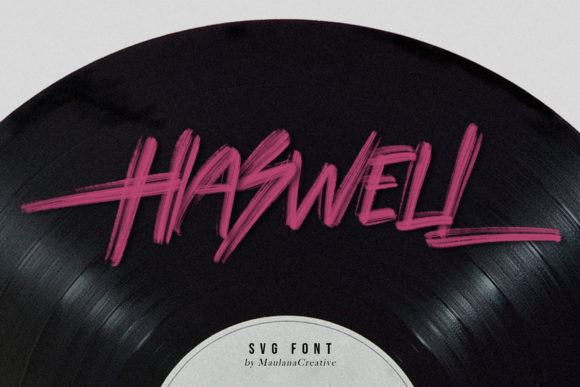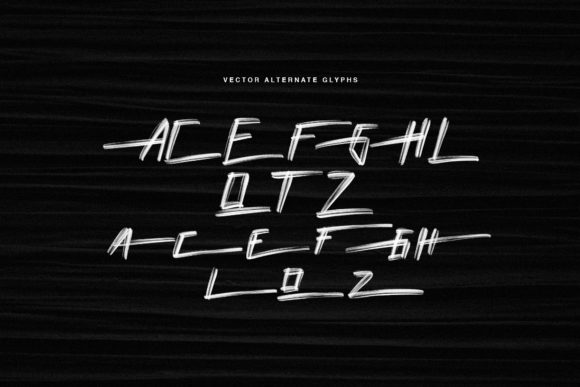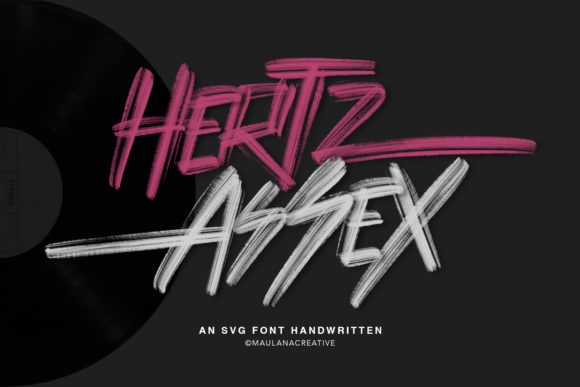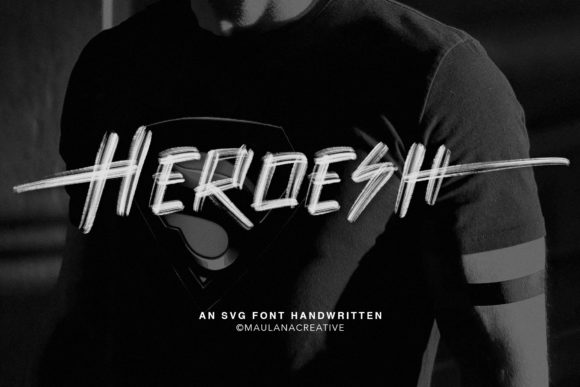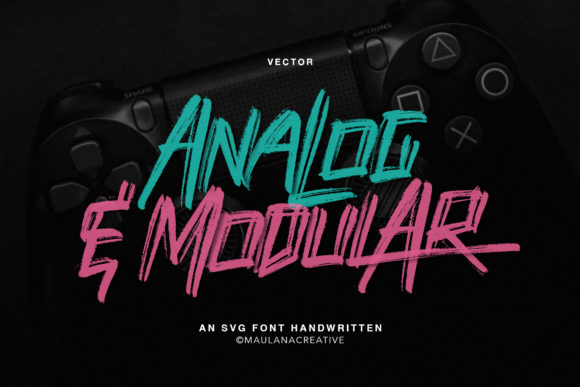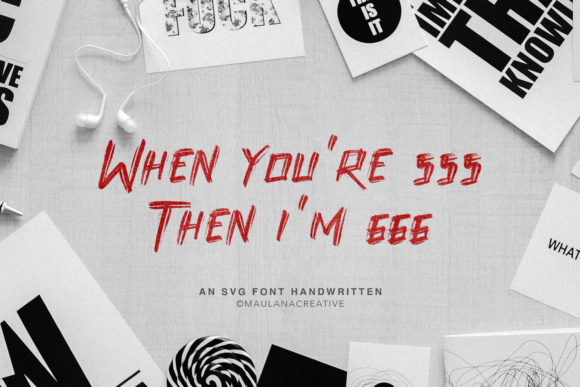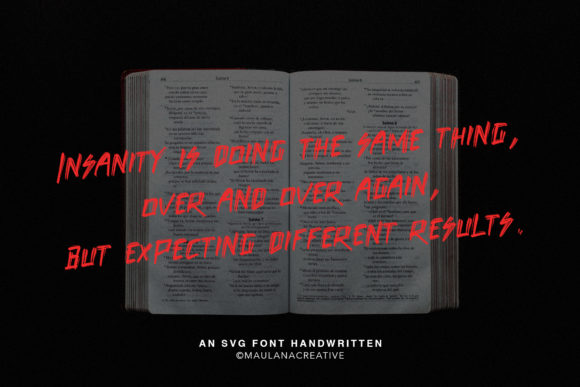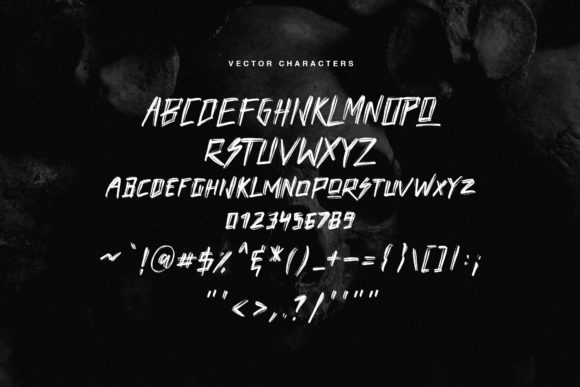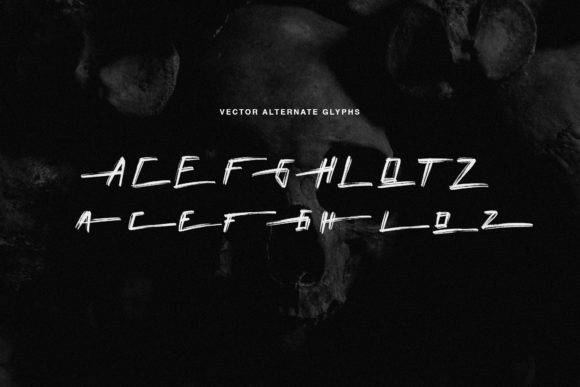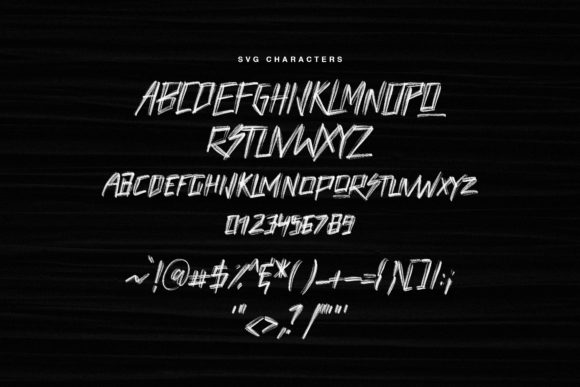
HomeScript FontsHaswell Font Script Fonts Haswell Font FacebookXPinterestWhatsApp Haswell Font Poster 2 Haswell Font Poster 3 Haswell Font Poster 4 Haswell Font Poster 5 Haswell Font Poster 6 Haswell Font Poster 7 Haswell Font Poster 8 Haswell Font Poster 9 Haswell Font Poster 10 About Haswell Font Haswell is a handwritten brush font. It is perfect for signatures, logos, branding, packaging and more. DOWNLOAD ON CREATIVE FABRICAThis font is sold and delivered by Creative Fabrica. Font Canyon may earn a commission if you buy through this link. People also explored Impermanence Font Saffron Font Silver South Font Setia Font Manoeffa Font Qergaint Font Fritlany Font Conica Bettlunerd Font 296 0 TagsHaswell Font Previous articleKambia FontNext articlePandasans Font LEAVE A REPLY Cancel reply Comment: Please enter your comment! Name:* Please enter your name here Email:* You have entered an incorrect email address! Please enter your email address here Website: Save my name, email, and website in this browser for the next time I comment. Personal Use Free Vincent Familiante Personal Use Free Read more about this font Gonestones Personal Use Free Read more about this font Motherblood Personal Use Free Read more about this font Elsabetha Personal Use Free Read more about this font BLOG Modern Sans-Serif Fonts That Brands Love in 2025 In 2025, modern sans-serif fonts remain a top choice for brands looking to project clarity, professionalism, and... Where to Buy American Fonts Online in 2024 To increase your work productivity, choose the most readable fonts. Best Fonts for T-Shirt Design – Top 2025 Picks